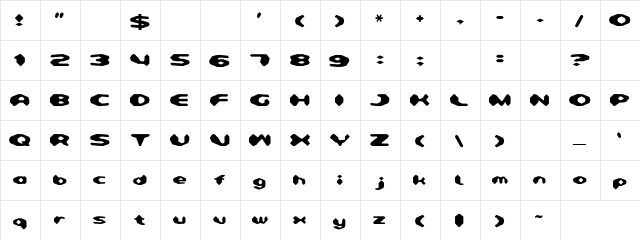
Detonator Regular
Design Context for Detonator Typeface
Detonator is a composed and adaptable typeface that performs quietly and consistently across a wide range of design contexts.